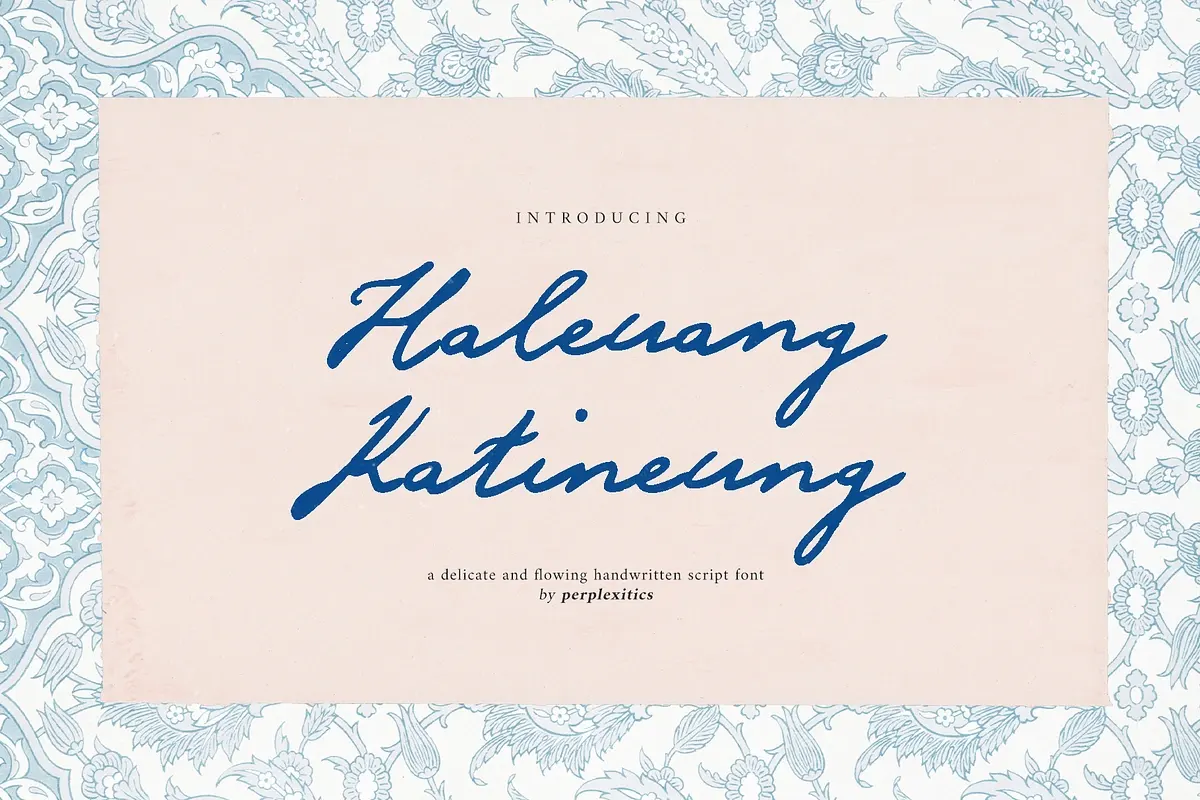
HaleuangKatineung Handwritten Script Font Free Download is a charming and expressive handwritten typeface that brings a personal, artistic touch to your designs. Perfect for logos, wedding invitations, greeting cards, social media posts, and branding, this font adds elegance and warmth to any project.
With its fluid curves and natural flow, HaleuangKatineung Handwritten Script Font Free Download captures the authenticity of handwritten lettering. Whether you're creating a romantic invitation, a chic logo, or a personalized brand, this font brings style and personality. Test it in your next project and experience its charm—then upgrade to a commercial license when you're ready to bring your design to life.